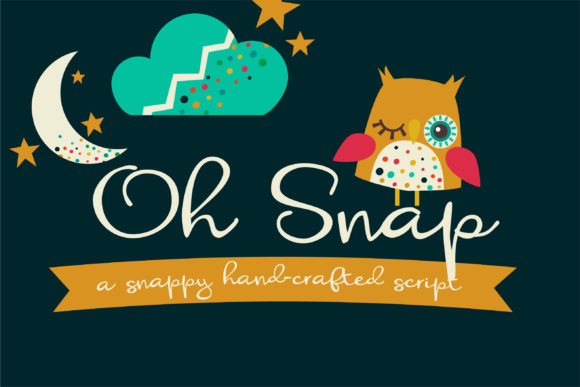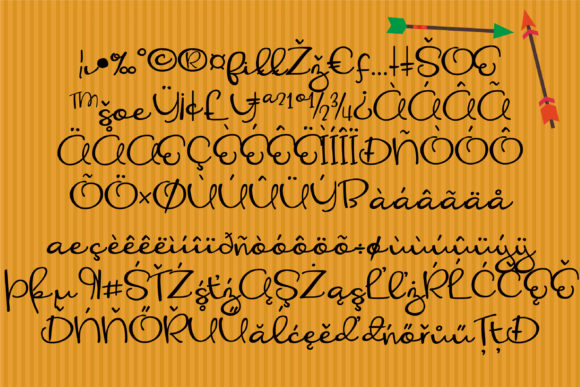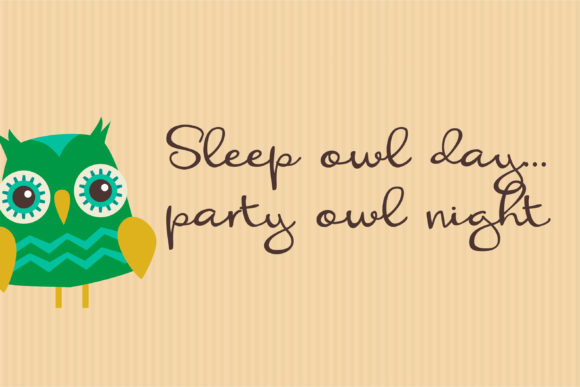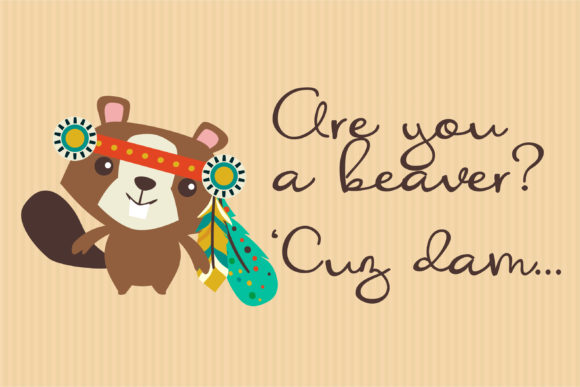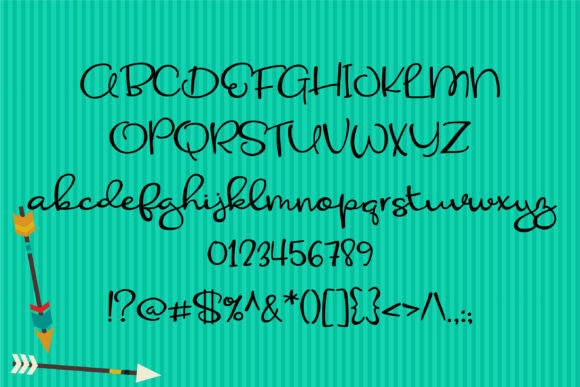
HomeScript FontsOh Snap Font Script Fonts Oh Snap Font FacebookTwitterPinterestWhatsApp Oh Snap Font Poster 2 Oh Snap Font Poster 3 Oh Snap Font Poster 4 Oh Snap Font Poster 5 About Oh Snap Font This hand-crafted script a fun loopy hand-written cursive font. DOWNLOAD NOW People also explored Harriesse Font Shade Sans Font Seren Font Grow Lotus Mandala Monogram Font Subjective Font Ackerley Font House Of Cards Coming Font Tymberlay Font 138 0 TagsOh Snap Font Previous articleLighthearted Pleasure FontNext articleAbaganoush Font LEAVE A REPLY Cancel reply Comment: Please enter your comment! Name:* Please enter your name here Email:* You have entered an incorrect email address! Please enter your email address here Website: Save my name, email, and website in this browser for the next time I comment. Personal Use Free Vivacious Personal Use Free Read more about this font The Pottery Personal Use Free Read more about this font The Relapse Personal Use Free Read more about this font Roustel Personal Use Free Read more about this font BLOG Best Fonts for T-Shirt Design – Top 2025 Picks In 2025, t-shirt design has become more than just fashion—it's a form of self-expression. Whether you're... Using Fonts in Digital Marketing: Tips to Strengthen Your Brand Identity Where to Buy American Fonts Online in 2024 Elegant Wedding Invitation Fonts – Handwritten & Script Fonts